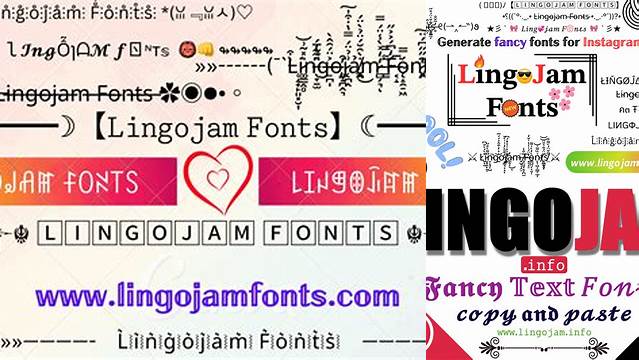
Cool Fonts: Change & Paste Online With Lingojam
Hey everyone! Are you looking to spice up your social media, wow your friends, or just add a little flair to your online presence? If so, you're in the right place! We're diving deep into the world of font changers, specifically focusing on how you can use one online, copy and paste fonts, and even explore the fantastic Lingojam font generator. Get ready to transform your text game!
H2: Understanding the Magic of Online Font Changers
So, what exactly is an online font changer? Think of it as your secret weapon for text customization. These nifty tools let you convert plain, boring text into something visually stunning, all with a few clicks. The beauty lies in their simplicity: you type in your text, choose a style, and boom! You've got a unique font ready to go. The concept behind these tools is straightforward. They use a variety of techniques, including Unicode characters and character mapping, to create the illusion of different fonts. Essentially, they take the standard text you input and replace the characters with special symbols and glyphs that resemble different font styles. This method allows you to bypass the limitations of standard font installation, making it super easy to use your fancy fonts on platforms that don’t support custom fonts. The process is remarkably user-friendly. You typically start by typing or pasting your desired text into the font changer’s input field. Next, you browse through the available font styles, which can range from elegant cursive and gothic scripts to playful bubbles and quirky symbols. Once you find a font you like, the tool generates the converted text, which you can then copy and paste into your desired platform, be it a social media post, a chat message, or a document. One of the biggest advantages is accessibility. You don’t need to download or install anything, making it accessible on any device with an internet connection. This is particularly useful for mobile users who want to add some pizazz to their text without complicated installations. Another key advantage is the sheer variety of styles available. Online font changers often offer a wide selection of fonts that are not typically found in standard text editors or word processors. This gives you the creative freedom to experiment with different looks and find the perfect font that matches your message and personality. The rise of social media has significantly fueled the popularity of these tools. Platforms like Instagram, Twitter, and Facebook have become visual battlegrounds, and unique fonts help your content stand out from the crowd. Whether you want to make your bio more eye-catching, add emphasis to a post, or create visually appealing captions, online font changers provide a simple, yet effective solution. Let’s not forget the fun factor! Playing around with different fonts can be incredibly enjoyable. It’s a great way to express your creativity, experiment with different styles, and personalize your online presence. Whether you’re a social media enthusiast, a content creator, or simply someone who loves to add a touch of flair to their text, online font changers offer a world of possibilities. They are a quick, easy, and fun way to make your text pop, grab attention, and leave a lasting impression.
H2: Copy and Paste Fonts: The Simple Way to Style
Alright, let’s talk about the bread and butter of our font-changing journey: the copy and paste method. It’s the heart of how these online font changers work. The beauty of copying and pasting fonts is in its simplicity. You don’t need any fancy software, coding skills, or technical knowledge. All you need is your chosen font changer, a bit of text, and the ability to copy and paste. Copying and pasting fonts allows you to use these unique styles on virtually any platform that supports text input. This includes all major social media platforms, messaging apps, email clients, and even many document editors. The flexibility is unparalleled. Once you've generated your stylish text, the next step is a simple copy-paste operation. Most font changers will have a button or a clear indication of how to copy the generated text. Once copied, you simply switch to your destination platform, paste the text into the text box, and voila! Your text will appear in the chosen font style. This seamless integration ensures that you can use your customized fonts across a wide range of applications, reaching a broad audience and expanding your creative possibilities. The copy-paste method relies on the use of Unicode characters. Online font changers convert your text into a variety of special characters and symbols that mimic the appearance of different fonts. When you copy and paste this text, these special characters are transferred along with the standard text, preserving the desired font style. This technique allows you to bypass font compatibility issues. The destination platform doesn't need to have the font installed; it just needs to support the Unicode characters. This wide compatibility makes copy-paste a reliable and versatile method for sharing your creative text. The benefits extend beyond social media and casual use. Content creators and marketers can use this technique to enhance their branding efforts, making their content more memorable and engaging. It can be used in headlines, captions, and even within the body of a text to emphasize key messages or sections. Copying and pasting fonts is an empowering technique, putting you in control of your text’s aesthetic appeal. It doesn’t matter if you're looking to grab attention, add personality, or simply have fun; the copy-paste method offers a straightforward and effective way to do so. The speed and convenience of the copy-paste method are also major advantages. In a world where attention spans are shrinking, being able to quickly generate and share unique text can make all the difference. You can create eye-catching text in seconds, share it instantly, and see how your audience reacts. This fast-paced interaction makes copy-paste an ideal choice for social media users, bloggers, and anyone looking to enhance their online communication.
H2: Lingojam Font Generator: A Closer Look
Now, let's zoom in on a specific tool: the Lingojam font generator. Lingojam stands out as a user-friendly and feature-rich font changer that offers a wide array of font styles. It's a great example of the kinds of tools we've been discussing, and it showcases the ease and versatility of these online resources. Lingojam’s interface is designed for simplicity. The site’s layout is clean and intuitive, making it easy for users of all technical backgrounds to navigate. The basic process involves typing your text into the input box on the left, and instantly, a selection of unique font styles appears on the right. This real-time preview lets you experiment and choose the font that best suits your needs, ensuring you can quickly find the perfect style. One of the key strengths of Lingojam is its diverse collection of font styles. From classic cursive and bold fonts to more exotic and unusual styles, Lingojam offers a wide variety of options to suit different tastes and purposes. Whether you are looking for an elegant font for a formal invitation or a playful font for a social media post, Lingojam likely has something that fits the bill. The tool also provides a good mix of both fancy and functional fonts, making it suitable for both creative expression and practical use. Lingojam, like other font changers, works by transforming your text into Unicode characters. These characters mimic different font styles, allowing your text to be displayed differently on platforms that don’t necessarily support custom fonts. The process is transparent to the user, who simply sees the text transformed into a visually appealing font without having to worry about the underlying technology. Another compelling feature of Lingojam is its ability to support multiple languages. This is crucial for users who create content in different languages. By supporting a wide array of characters and symbols, Lingojam ensures that your text appears correctly, regardless of the language. This multilingual support makes the tool a great choice for a global audience, making it ideal for international brands, social media influencers, and anyone looking to communicate with a diverse audience. The site also updates and improves its font collection regularly, adding new styles to keep things fresh. This ensures that you always have access to the latest trends in font design and that your content remains current and engaging. The user-friendly interface is a significant advantage. The site provides a clean and intuitive design, making it easy to create visually appealing text. The easy-to-use platform encourages experimentation, letting you freely explore different styles and create content that truly stands out. For those just starting with online font changers, Lingojam offers a smooth learning curve. The site eliminates technical barriers, letting users easily create eye-catching text without special skills or tools. This accessibility is essential for anyone who wants to quickly and easily add personality to their online presence.
H2: How to Use a Font Changer: Step-by-Step Guide
Ready to get started? Using a font changer is super easy. Here’s a simple step-by-step guide to get you up and running in no time:
Choose Your Font Changer: The first step is to pick an online font changer. Lingojam is a great place to start, but there are many others available. Just search online, and you'll find plenty of options. Try a few to see which one you like best!
Enter Your Text: Once you've found your font changer, type or paste the text you want to convert into the designated input box. This is usually a large text field where you can enter your message.
Browse Font Styles: Most font changers offer a variety of font styles. Browse through the available options and find one that appeals to you. Preview the different fonts to see how your text will look.
Copy the Output: When you’ve found the perfect font, the tool will generate your text in the chosen style. Copy the generated text. Look for a 'Copy' button or a simple way to highlight and copy the text.
Paste It: Go to the platform where you want to use the font (e.g., social media, chat app, document). Paste the copied text into the text field. The font should appear as you selected it. You're done!
H2: Finding the Perfect Font: Style and Personality
Choosing the right font can make a huge difference. Think about what message you want to convey. Is it fun and playful, or professional and elegant? Different fonts evoke different feelings, so consider your audience and the context of your message. Think about the style of your content. A bold, striking font might be great for a headline, while a more subtle font might be better for the body of the text. Experimentation is key! Try out a few different fonts to see which one best complements your message and your overall aesthetic. Don't be afraid to try something unexpected. Sometimes, the most unique fonts are the ones that really grab attention. Also, keep readability in mind. While it's tempting to use elaborate fonts, make sure your text is still easy to read, especially if you're using it for important information. Use tools that provide previews of your text, so you can see exactly how it will look. Many font changers offer a real-time preview, which is incredibly useful for trying out different styles and making sure your text looks good. Remember, the best font is one that reflects your personality and speaks to your audience. Whether you're aiming for sophistication, creativity, or just a little bit of fun, the right font can help you achieve your goals. Take your time, explore your options, and don’t be afraid to get creative! Finding the perfect font can really elevate your content and make it stand out. It's a fun process, so enjoy experimenting with different styles until you find the perfect fit. There are so many great options available, so it's all about finding what resonates with you and your audience.
H2: Font Changer Uses: Where Can You Apply It?
Where can you actually use these cool fonts? The possibilities are pretty endless. Here's a breakdown:
- Social Media: Instagram bios, Twitter tweets, Facebook posts, and more. Make your profile stand out!
- Messaging Apps: Spice up your texts in WhatsApp, Telegram, and other apps.
- Email: Add a unique touch to your email signatures or newsletters.
- Documents: Use fancy fonts in your documents, presentations, and even school projects to make them more visually appealing.
- Game Names and Usernames: Create unique usernames that are impossible to miss.
- Website Content: Headlines, subheadings, and even body text. Create an eye-catching design.
- Digital Art and Design: Enhance the visual impact of your artwork. Add creative text effects.
H2: Beyond Copy and Paste: Other Font Options
While copy and paste is the go-to, there are other cool ways to use different fonts. You could install fonts on your device if the platform supports it. This is great for your own personal use, such as for your documents or offline editing tools. You could also use font-supported apps, as some apps have built-in font options. This is especially good for creating graphics. It lets you create custom text directly within their interface. Then, you can post the images to social media or use them in any digital format. Another option is to create images with text. Use graphic design software like Canva or Photoshop to design unique text and graphics, giving you ultimate control over the appearance of your fonts. By creating images, you can bypass font compatibility issues on platforms that don’t support custom fonts. The downside is that your text isn't directly selectable, so this method works best for creative content and display purposes. Another exciting trend is to use online font generators that create font art. They transform your text into images or patterns that can be used on your social media profiles, profile pictures, and more. These are great for adding a unique visual flair to your text.
H2: Avoiding Common Font Changer Pitfalls
Even with these amazing tools, there are a few things to keep in mind. First off, be careful with overuse. Too much fancy font can distract your audience and make your text difficult to read. It's like adding too much spice to your food: a little goes a long way. Make sure your text is still readable. The most beautiful font is useless if people can't understand what you're trying to say. This is especially important for body text. Some fonts may not render correctly on all devices, so check your text on different platforms to make sure it looks how you want it to. Lastly, be aware of character limitations on some platforms. Long messages with many special characters might get cut off. Keep it concise! Keep your fonts appropriate. Consider your audience and the purpose of your text. Avoid fonts that may be offensive or difficult to understand. Be mindful of cultural sensitivities. Double-check your text. Before posting, always double-check your text to make sure everything looks correct. Typos and formatting errors can distract from your message. Prioritizing readability ensures that your content is clear, accessible, and enjoyable for your audience. A simple mistake can be a turnoff, so make sure to double-check.
H2: Security and Privacy Considerations
When using online font changers, it's a good idea to be aware of security and privacy. Make sure you use reputable sites that are known and have good reviews. This minimizes the risk of malware or other security threats. Avoid entering sensitive personal information. Font changers primarily deal with text, but it's always good practice to avoid entering sensitive data like passwords or financial information. Check the site's privacy policy. Always review the website’s privacy policy to understand how they handle your data and what measures they have in place to protect your privacy. Use a secure connection. Make sure the website uses an HTTPS connection. This indicates that the connection is encrypted and more secure. Be cautious about clicking on links. If you see ads or unexpected links on the site, be cautious about clicking them. These links could redirect you to malicious websites. Keep your software updated. Ensure that your browser and operating system are up to date with the latest security patches to protect against vulnerabilities. Be skeptical of unusual requests. If a website asks for excessive permissions or requires you to download unusual files, it may be a sign of a potential security risk. Trust your instincts. If something feels off, or if you're unsure about the site, it's best to err on the side of caution and avoid using it. Security is really important when using any online tool, so take a few extra moments to make sure you're safe.
H2: Font Changer Alternatives: Exploring Other Options
While online font changers are great, let's look at some other ways to jazz up your text. Install fonts on your device. This works if you want to use them in your documents or offline editing tools. You can also use font-supported apps, as many apps have built-in font options. This is especially good for creating graphics. Create images with text. Use graphic design software, such as Canva or Photoshop, to design custom text and graphics. Use specialized font software. Tools like Adobe Photoshop or GIMP offer advanced font customization options. Another great option is to use websites that offer a font preview. These tools let you preview different fonts with your own text, so you can see how they look. There are also many websites that offer free fonts. Websites such as Google Fonts and DaFont provide a wide selection of free fonts that you can download and use in your projects. If you need something more advanced, consider using professional design software. Professional design software, like Adobe InDesign, provides extensive typography control and customization options. Finally, explore typography tutorials. Online tutorials can provide valuable guidance on font selection and effective use of typography. This can help you learn more about different font options and techniques for creating appealing content.
H2: The Future of Font Changers: Trends and Predictions
The future looks bright for font changers. Here's what we might see:
- AI-Powered Font Generation: Imagine font changers that use artificial intelligence to suggest fonts based on your content. The AI could analyze the tone and topic of your text to recommend the perfect font. This could save a ton of time and make finding the right font even easier.
- Integration with Other Tools: We might see font changers seamlessly integrated with social media platforms, document editors, and other apps. This would make it even easier to create and share custom text.
- More Advanced Customization: Expect to see even more customization options, such as the ability to adjust the spacing between letters, create custom font effects, and even design your own fonts. This could allow for even more unique and personalized text.
- Enhanced Mobile Compatibility: As mobile usage continues to grow, font changers will likely become even more optimized for mobile devices. This would make it easier to create and share custom text on the go.
- Greater Focus on Accessibility: Developers will likely prioritize accessibility, ensuring that font changers are usable by people of all abilities. This would include options for adjusting font sizes, using color contrast, and providing text alternatives.
- Interactive Typography: Expect the rise of interactive typography. Font changers could incorporate animations, 3D effects, and other interactive elements to make text more engaging and dynamic. This could revolutionize the way we use text.
- The Metaverse: Font changers might be used to enhance virtual reality and metaverse experiences. Custom fonts could be used for avatars, virtual environments, and virtual text. The font changing landscape is likely to continue to evolve, offering more creative tools and exciting possibilities.
H2: Troubleshooting Common Font Changer Issues
Sometimes, things don’t go perfectly smoothly. Here’s how to fix common problems.
- Font Doesn’t Display Correctly: This is usually because the platform you're using doesn't support the font. Use images with text instead, or choose a font that's closer to the original font style.
- Text Gets Cut Off: Check character limits on social media platforms. Shorter is often better. If you have a longer message, break it up into multiple posts.
- Font Looks Different on Different Devices: This happens because of the differences in how devices render text. Use a standard font for longer messages and experiment with fonts that are likely to display correctly on the majority of devices.
- Copy and Paste Doesn’t Work: Make sure you've selected and copied the entire text. Some platforms might have issues with special characters. In this case, try a different font or use an image with text.
- Tool Not Working Properly: Clear your browser's cache and cookies. Restart your browser or try a different font changer. If the problem persists, try another font changing tool.
- Platform Blocks the Font: Some platforms may block certain characters or fonts. In these cases, your only option may be to use an image with text.
- Text Looks Garbled: This could be a rendering issue. Try a different font or a different platform, or create an image with the text. Proper troubleshooting can help ensure your text always looks its best.
H2: Font Changer Etiquette: Dos and Don'ts
It’s good to have some guidelines for using these tools.
Do:
- Use Fonts Appropriately: Choose fonts that fit the message you're trying to convey. Consider your audience and the context in which your text will appear.
- Test on Different Platforms: Make sure your font looks good on various devices and platforms. Not all fonts render equally well everywhere.
- Respect Copyright: If using fonts for commercial purposes, make sure you have the proper licenses. Some fonts are free for personal use, but require a license for business use.
- Prioritize Readability: Make sure your fonts are legible. The goal is to communicate effectively, and the font should enhance, not detract from, your message.
Don't:
- Overuse Fancy Fonts: Too much fancy font can be distracting and make your message hard to understand. Less is often more.
- Use Offensive Fonts: Avoid using fonts that could be considered offensive or inappropriate. Be respectful of your audience and the platform's guidelines.
- Misrepresent Information: Don't use fonts to mislead or deceive people. Always be honest and transparent.
- Disrupt the User Experience: Avoid using fonts that cause technical issues or interfere with the normal user experience. The goal is to enhance the content, not hinder it.
H2: Font Changer and Branding: A Creative Combination
Using a font changer can significantly impact your branding. Here's how:
- Create Unique Brand Identity: Unique fonts make your brand stand out and be recognizable. This helps your target audience remember you, which leads to increased brand awareness. A well-chosen font can speak volumes about your brand's personality.
- Reinforce Brand Values: Fonts can reflect your brand values. A modern, clean font may suggest innovation, while an elegant script may convey luxury. The font you choose should align with your core values and the message you want to send.
- Enhance Visual Consistency: A consistent font across all of your content (social media, website, and marketing materials) reinforces your brand identity. Consistency builds trust and helps people instantly recognize your brand. This reinforces your brand identity and makes your audience more familiar with your overall aesthetic.
- Attract Your Target Audience: The font you choose should resonate with your target audience. Consider their preferences and what type of content and design they are likely to engage with. You want to make sure the font matches their expectations.
- Increase Engagement: Visually appealing fonts can increase engagement and attract more followers. A unique font can immediately capture the attention of your audience, especially in a world with tons of content. By choosing the right font, you can make a strong visual statement that resonates with your target audience and strengthens your brand presence.
H2: Font Changer for Business: Marketing Advantages
Using font changers in your business can really boost your marketing. Here's how:
- Improve Social Media Presence: Make your social media posts more eye-catching. Unique fonts help your content stand out and increase your brand visibility.
- Enhance Website Content: Add stylish headings, subheadings, and calls to action. Eye-catching fonts grab attention, make your website content more engaging, and increase conversions.
- Create Effective Advertising: Use distinctive fonts in ads to get noticed. A creative font choice can make your ads more memorable and compelling, increasing click-through rates and driving sales.
- Strengthen Email Marketing: Add stylish fonts to email campaigns to make your emails more engaging. This improves open rates and can boost conversions. You can also make your emails more visually appealing.
- Boost Brand Recognition: Use consistent fonts across your marketing materials to improve your brand recognition. Consistent branding makes your audience more familiar with your brand.
- Attract New Customers: Eye-catching fonts help your content reach a wider audience. Unique fonts increase the chance that your content will be shared and seen by potential customers.
H2: Font Changer and Accessibility: Designing for All
When using font changers, it's really important to think about accessibility. Design for everyone.
- Prioritize Readability: Choose fonts that are easy to read. Avoid fonts that are overly decorative or hard to understand.
- Use Sufficient Contrast: Make sure there's enough contrast between the font color and the background. This improves readability for people with visual impairments.
- Consider Font Size: Choose an appropriate font size. Large text is easier to read, especially for those with vision problems.
- Provide Text Alternatives: If you are using images with text, provide alternative text descriptions. This helps people who use screen readers understand the content.
- Use Consistent Formatting: Maintain consistent formatting and font styles. This helps people predict and understand the content more easily.
- Offer Multiple Options: Provide multiple options for your users. Offer different font sizes or versions of the text. This allows for personalized text readability.
H2: Beyond the Basics: Advanced Font Changer Techniques
Ready to level up your font game? Here are some advanced techniques:
- Combining Fonts: Experiment with pairing different fonts. Use a unique font for headlines and pair it with a readable font for the body text.
- Using Font Effects: Add shadows, outlines, and other effects. Use design software to customize fonts even further for a unique look.
- Creating Custom Font Styles: Learn how to design your own font variations. If you're feeling creative, consider designing your own fonts or modifying existing ones. It requires advanced software and skills, but it will set your text apart.
- Working with Color: Use colors effectively. Choose a color palette that complements your font. Match colors to your brand and consider how colors influence your audience.
- Adding Dynamic Text: Experiment with animated text. Use animations to make your text more interactive and engaging, especially on social media. This makes your content stand out and grabs your audience’s attention.
- Incorporating Visual Elements: Incorporate your text with visual elements. Combine unique fonts with graphics, illustrations, or photos to create a cohesive design. Combine font with graphics.
H2: Font Changer for Different Platforms: Best Practices
Each platform has its own best practices for using font changers. Let's look at some examples:
- Instagram: Use unique fonts for your bio, captions, and highlights. Keep your fonts concise, especially in your bio, and use eye-catching fonts to attract attention to your profile. Use fonts that work well in a small space.
- Twitter: Use fancy fonts for headlines and engaging tweets. Character limits are still a factor, so make sure your fonts are efficient. Use fonts that will make your tweets more impactful.
- Facebook: Use fonts for posts, headlines, and cover photos. The platform is designed for sharing content, so your font choices should focus on readability. Use fonts that are clear and accessible to a wide audience.
- LinkedIn: Use creative fonts for your profile and articles. Use the fonts to create a more professional but still engaging appearance. Choose fonts that balance style and professionalism.
- TikTok: Use fancy fonts for your video captions. Make your text stand out on videos by using fonts that are both readable and appealing. Match your font choice with your video's theme.
H2: Legal and Ethical Considerations of Font Use
When using font changers, it's vital to think about the legal and ethical sides. Here's a brief overview:
- Licensing: Understand font licenses. Some fonts are free for personal use but require a commercial license. Always know the terms of the font license.
- Copyright: Make sure you don't violate any copyright laws. Use fonts legally and respect the rights of font designers.
- Attribution: Give credit if required. If the font license requires attribution, make sure to give the necessary credit to the font designer or creator.
- Misrepresentation: Avoid using fonts to misrepresent information. Make sure your font use is accurate and honest.
- Cultural Sensitivity: Be aware of cultural sensitivities. Select fonts that are appropriate for your target audience, and be aware of potential cultural implications.
- Fair Use: Understand fair use principles. There might be some specific cases in which you can use fonts without a license, but be cautious and always research the laws.
H2: Future of Typography: Where Font Changers Fit In
Font changers will be vital as typography evolves. Expect more tools that use artificial intelligence. With AI, these tools will generate text and customize font choices, making them even more personalized. They will also be integrated seamlessly with different digital platforms and apps. This creates even more creative possibilities. Expect interactive and dynamic typography. This will enhance and transform the way we interact with texts and visuals. There will be advanced customization and personalization options to make text even more visually appealing. The future of typography is exciting, with font changers playing a crucial role. This is because these tools are a powerful combination of creativity and technology. They will keep changing the way we make text visually interesting.
H2: Lingojam vs. Other Font Changers: A Comparison
Lingojam is just one font changer, so let's see how it stacks up against the competition:
- User Interface: Lingojam often has a simple interface, making it easy to use, while some others might offer a more complicated experience.
- Font Variety: Lingojam offers a wide selection of fonts, but the range can vary between different tools. Make sure the variety is appropriate for you.
- Compatibility: Most font changers rely on Unicode characters, ensuring compatibility across many platforms. But, certain tools may have problems with specific devices.
- Customization Options: While Lingojam focuses on font styles, some tools offer more customization like spacing or special effects.
- Additional Features: Some font changers have extra features like text generators. Check to see if any added features are helpful to you.
- Cost: Many font changers are free, but some may have premium features available. Cost is a great factor when choosing a tool.
H2: Staying Updated: New Fonts and Features to Watch For
The world of font changers and typography is ever-changing. Here’s how to stay up-to-date:
- Follow Design Trends: Keep an eye on design trends. Follow design blogs and social media accounts to learn about what’s popular and new in typography.
- Explore New Tools: Try new tools as they appear. New font changers and features are always being developed. Experiment with them to see if you can add more creativity.
- Use Social Media: Follow font designers and typography experts on social media. They often share their work and any new releases in the field.
- Read Design Publications: Read design blogs and publications. Learn more about new fonts, trends, and other things in the field.
- Check Websites Frequently: Check the websites of your favorite font changers often. This is a simple way to make sure that you do not miss any new fonts.
H2: Font Changer for Designers: Advanced Tips and Tricks
If you're a designer, here are some advanced tips:
- Combine Fonts: Experiment with different font combinations to get unique effects. Pair display fonts with more standard fonts for visual interest.
- Add Special Effects: Use special effects to make your text unique. Experiment with shadows, outlines, and other effects to add depth and dimension.
- Create Custom Graphics: Create custom graphics to combine fonts with images. This makes your content even more visually appealing and impactful.
- Customize Text for Branding: Customize the text for your brand. Use your font to connect with your target audience.
- Experiment: Keep experimenting. The most creative text is one that's unique. You can use your creativity to explore all different types of options.
H2: Conclusion: Embrace the World of Font Changers
Guys, there you have it! Font changers are a fantastic way to level up your text game and make your online presence pop. From understanding the basics to mastering copy-and-paste techniques, exploring Lingojam, and avoiding common pitfalls, you're now well-equipped to dive into this creative world. Remember, the right font can transform your message, capture attention, and reflect your personality. So go out there, experiment, and have fun! The perfect font is just a click away. Get creative, and see how you can elevate your online content with a little font magic. Happy font changing!